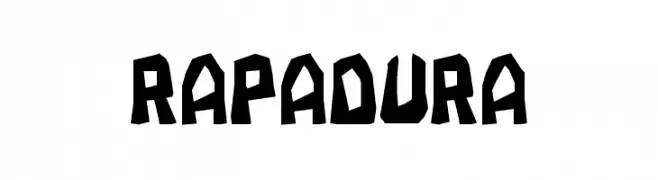
( Sentype - Saidi Senhikari - www.behance.net/Senhikari )
A bold, geometric font with sharp angles and clean lines, perfect for modern designs.
( André Felipe - www.behance.net/andfelcaslop )
A modern, geometric font with clean, rounded edges and uniform stroke widths.
( Aaron Amar - www.behance.net/aaronamar )
A bold, dynamic font with a playful and energetic style.
An ultra-condensed, high-contrast font with a modern, dramatic style.
( JapanYoshi - Harry Wakamatsu - behance.net/japanyoshi )
A modern sans-serif font with geometric shapes and uniform strokes.
( JapanYoshi - Harry Wakamatsu - behance.net/japanyoshi )
A modern, oblique sans-serif font with a dynamic and sleek design.
( Fonts by Poemhaiku - Huong Le Thi Thu - www.behance.net/poemhaiku )
A bold, textured handwritten font with a playful and dynamic style.
( WDS - Wedscley Melo - www.behance.net/wedscley )
A bold, angular font with a rugged and dynamic style.
An elegant and flowing script font with ornate, decorative letterforms.
( Fonts by Rodrigo German - RASDESIGN )
A playful collection of hand-drawn dingbats featuring whimsical designs.